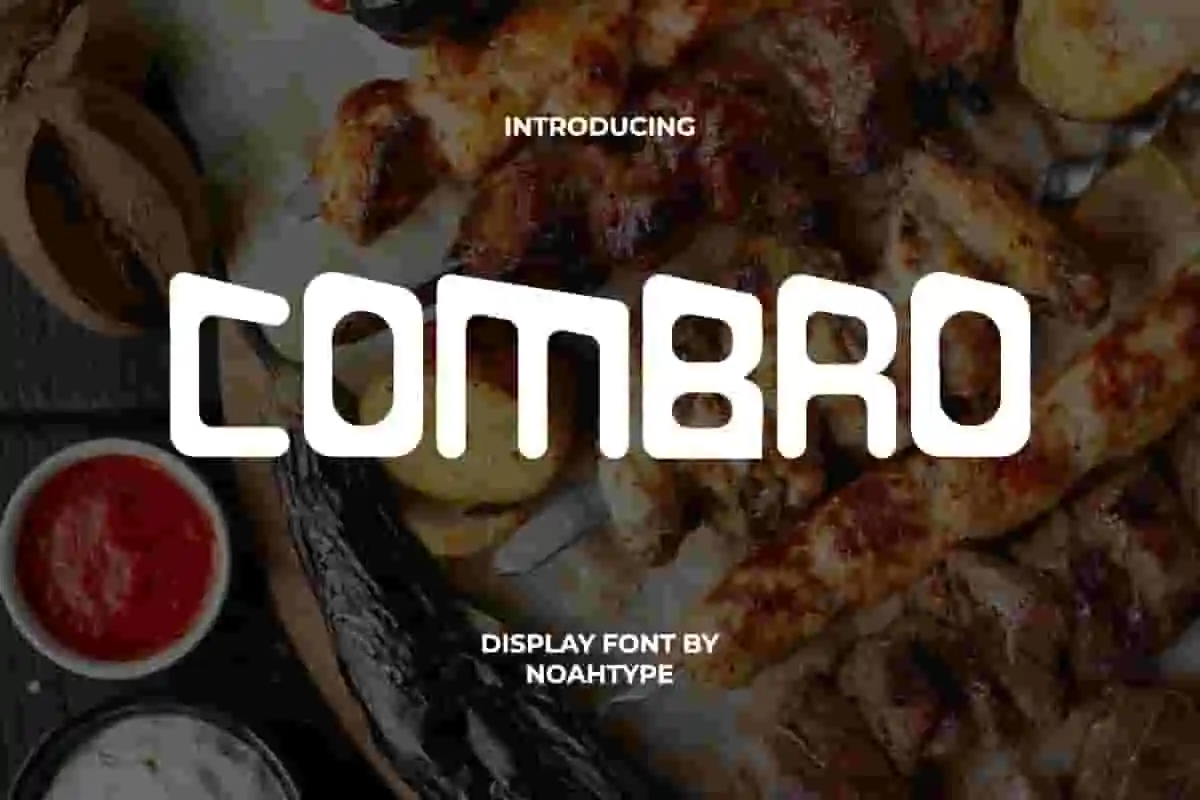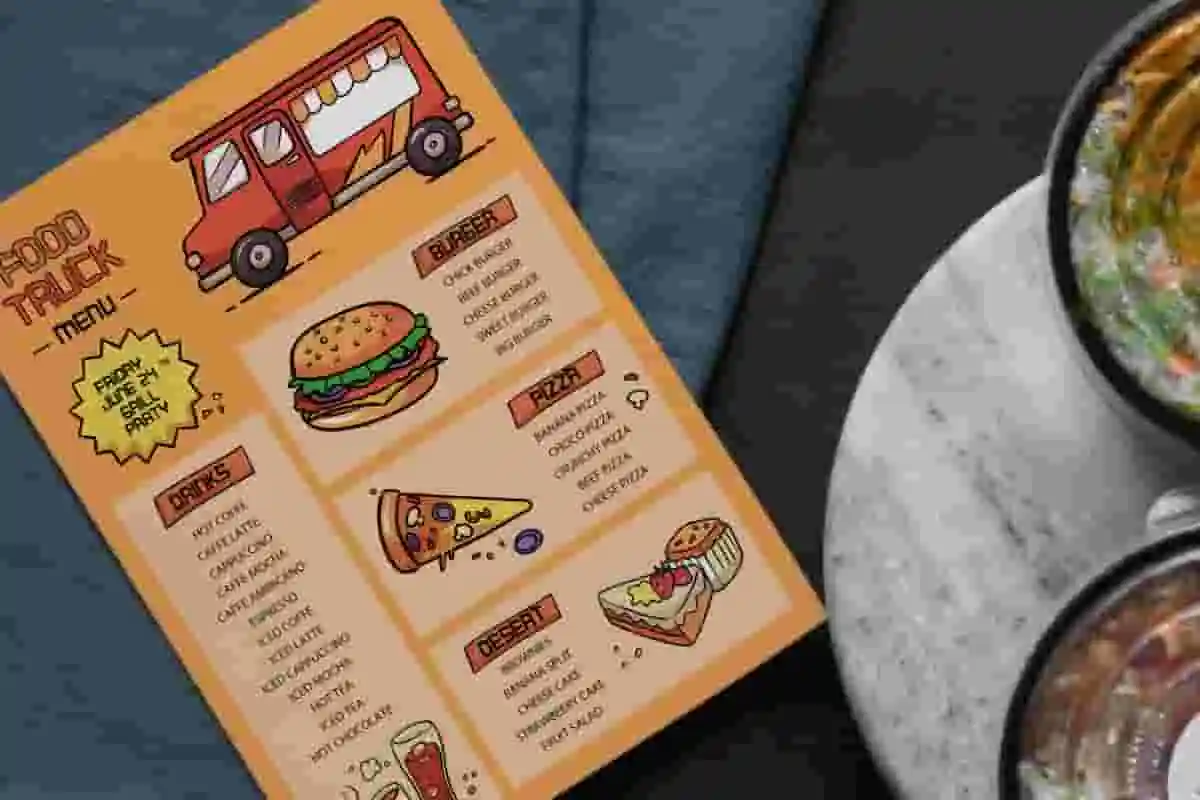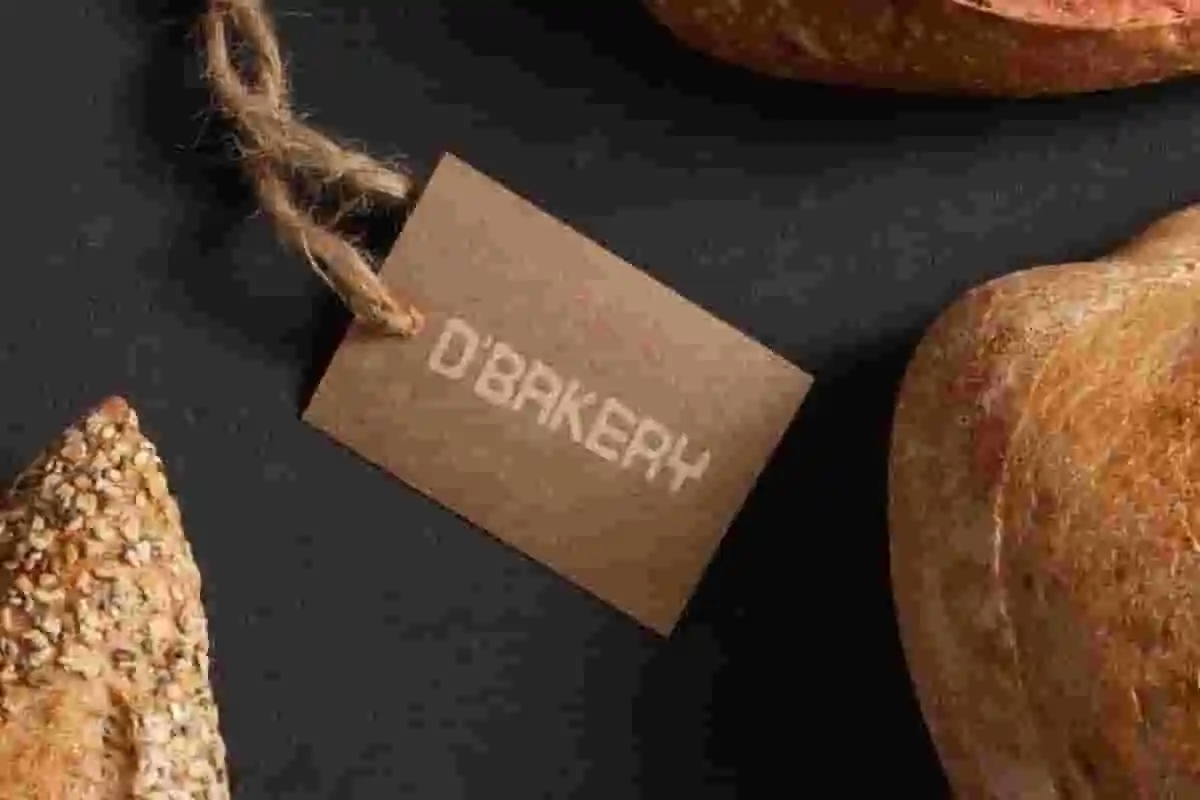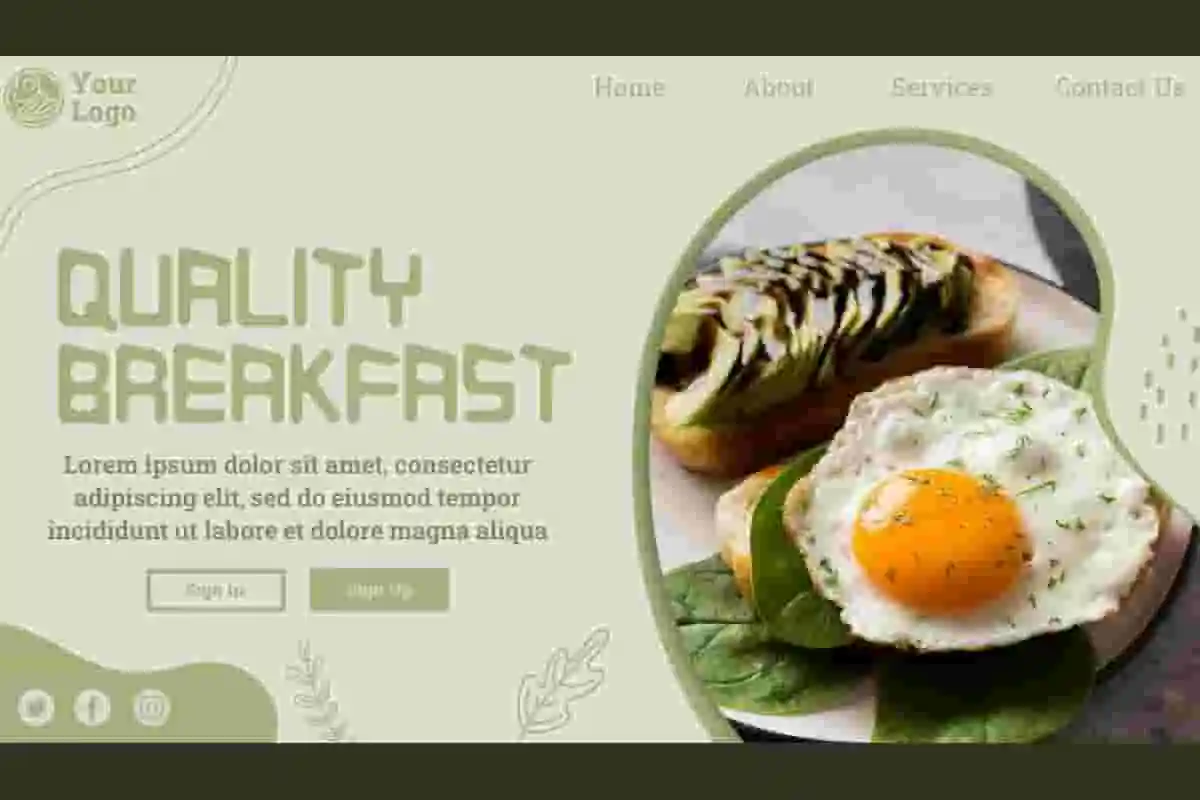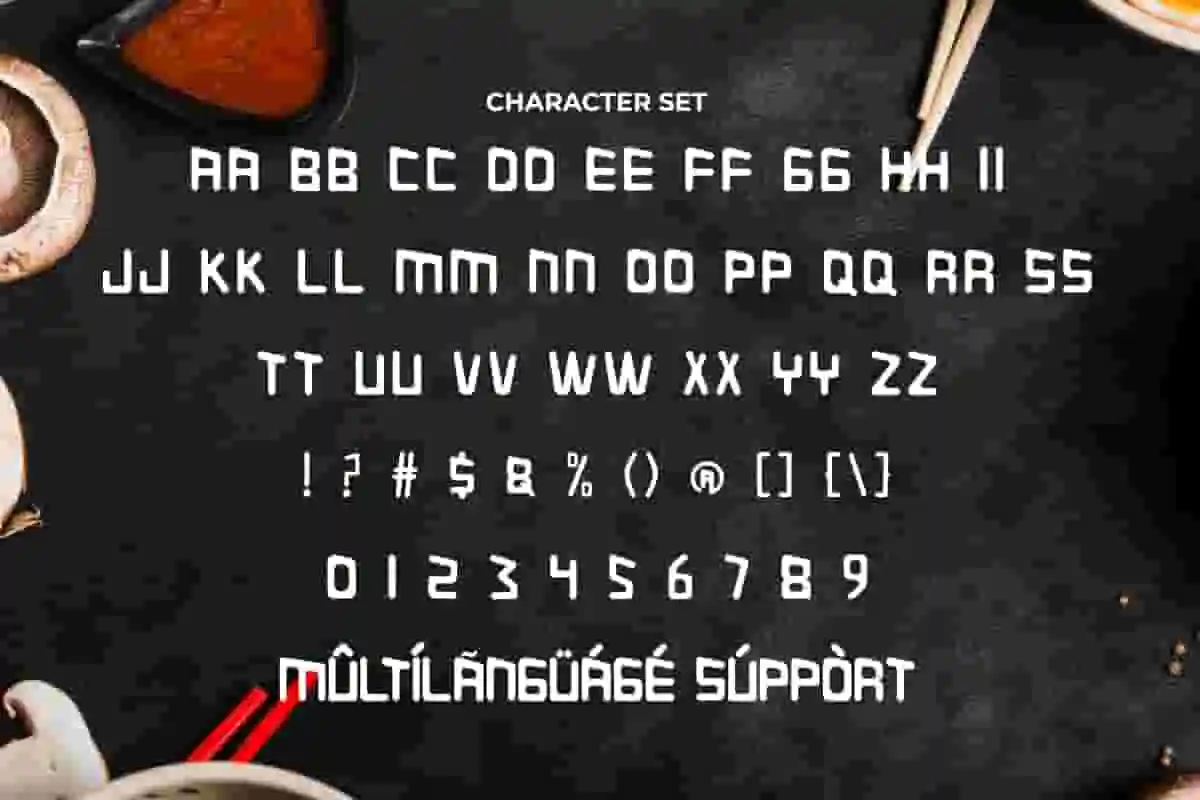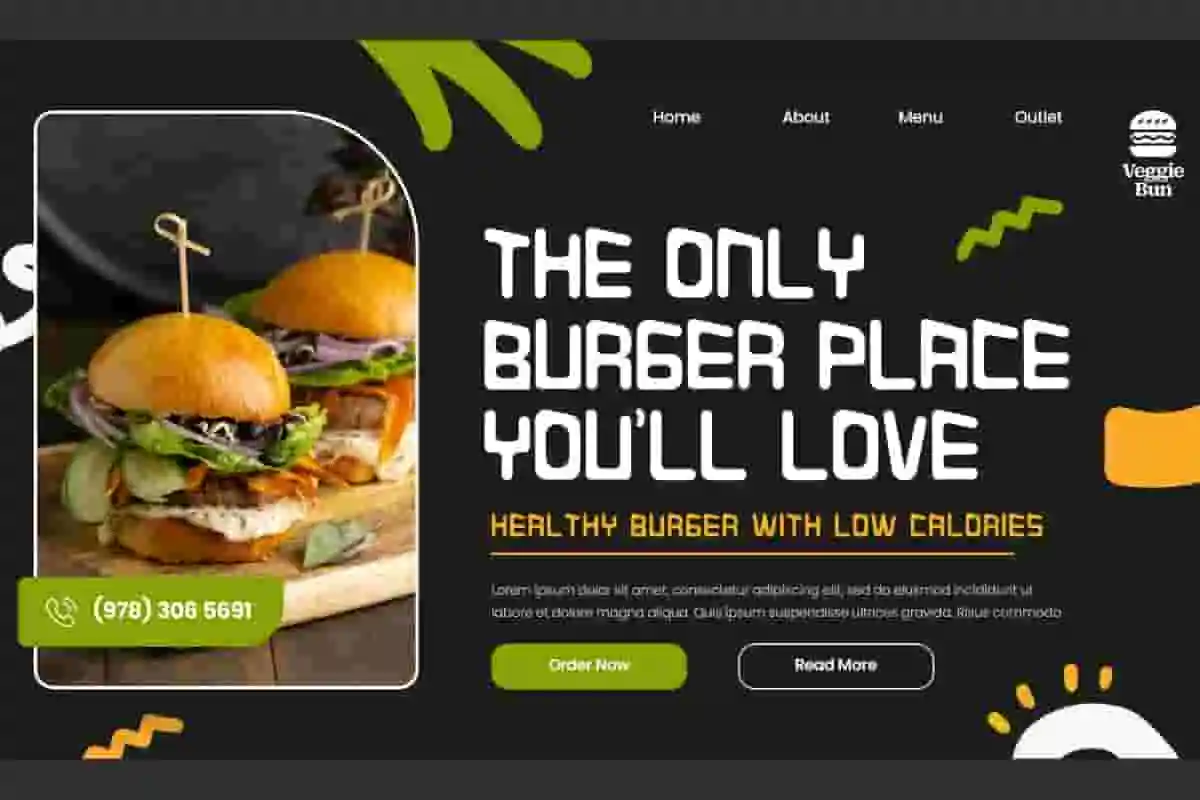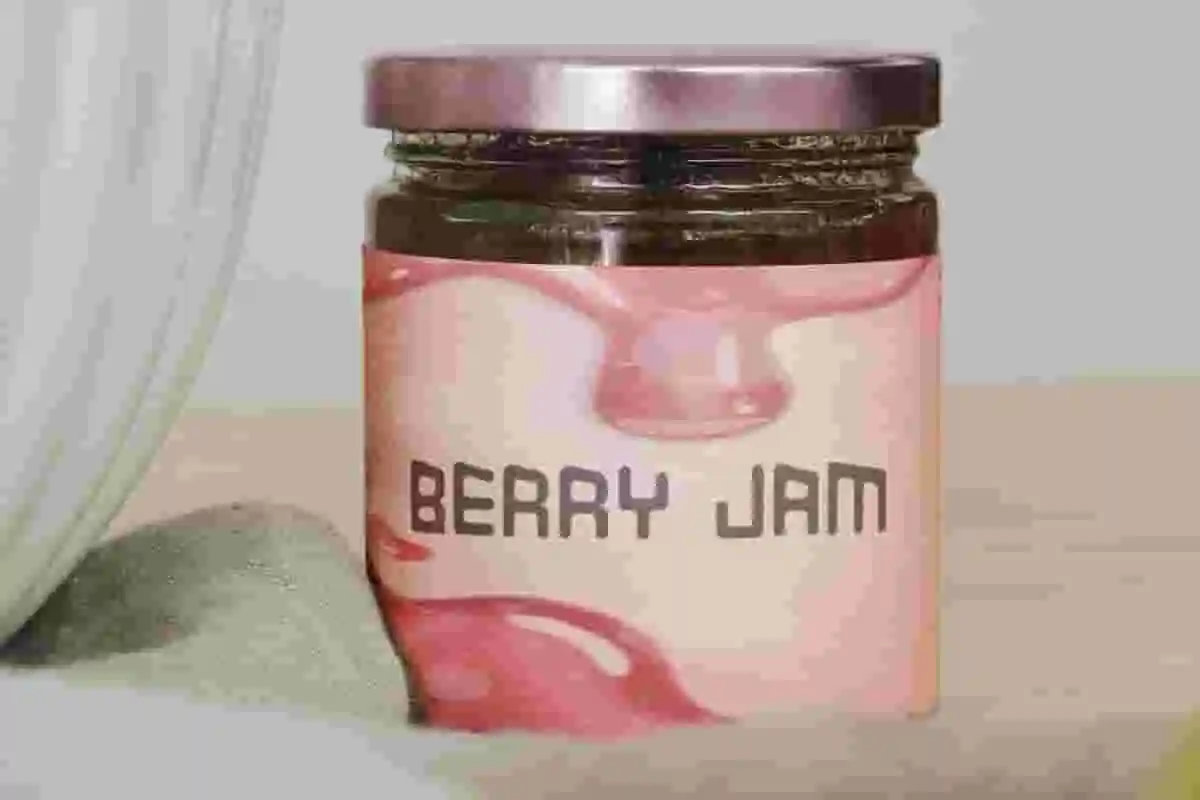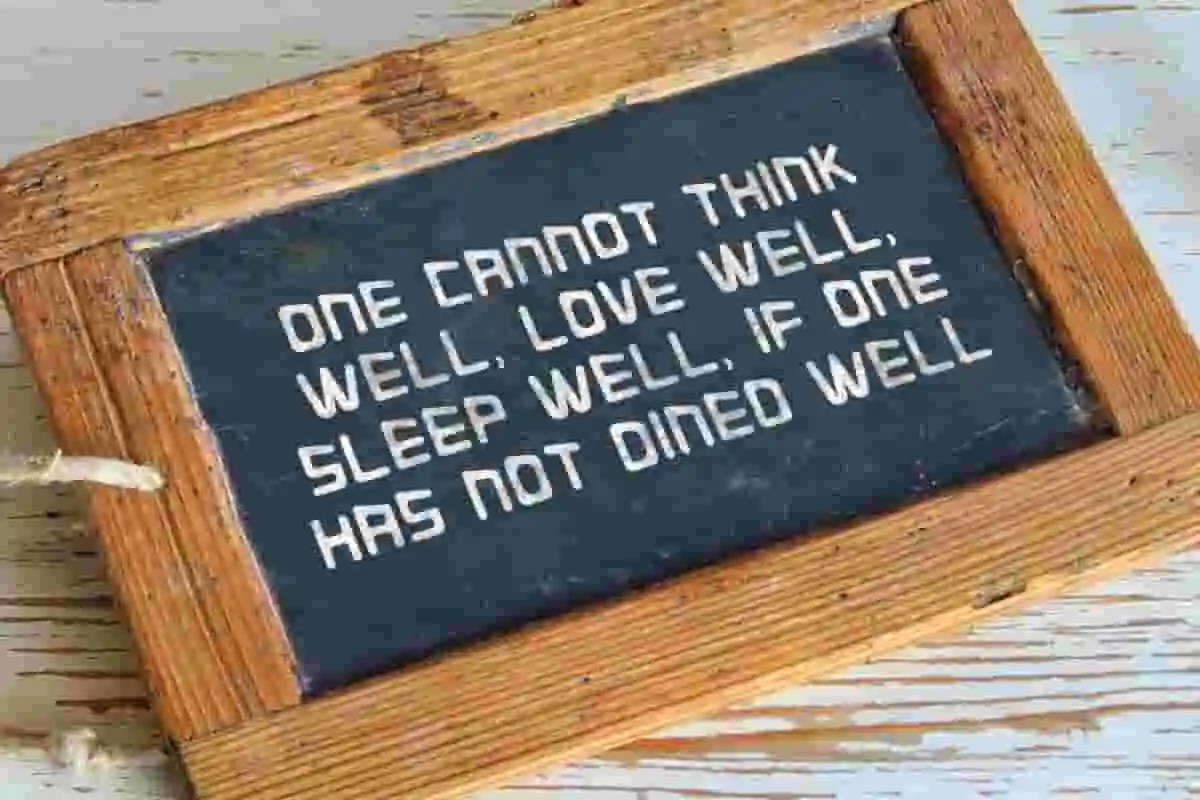
Combro Font is a uniquely bold yet stylish display font inspired from traditional foodist menu. The style of this font may be plain, but the slanted tops make it look special. It will be perfect for any projects, such as menu, label, poster, stationery, custom design, signage, invitation, brand image, cover, printing, product packaging, quotes, website, and many more!
Combro Font includes full set of ALL CAPS for Uppercase and Lowercase Basic Characters, Numerals, Punctuation, and Symbol. This modern font will make your design standout and also a perfect choice for many industries, such as cafe, restaurant, fashion, automotive, sports, game, racing, movie, accessories, advertising, art, cafe, event or festival, printing, publishing, etc.